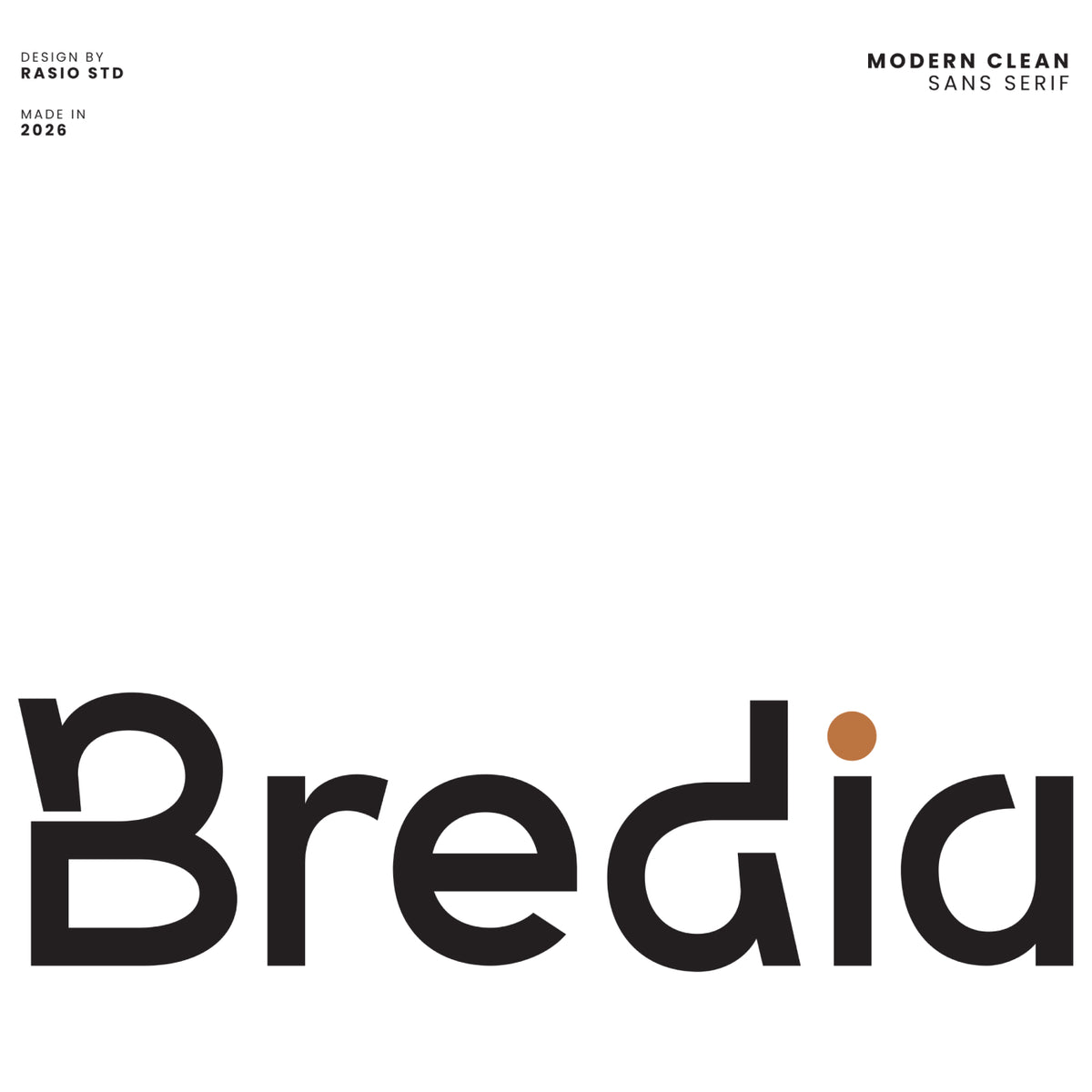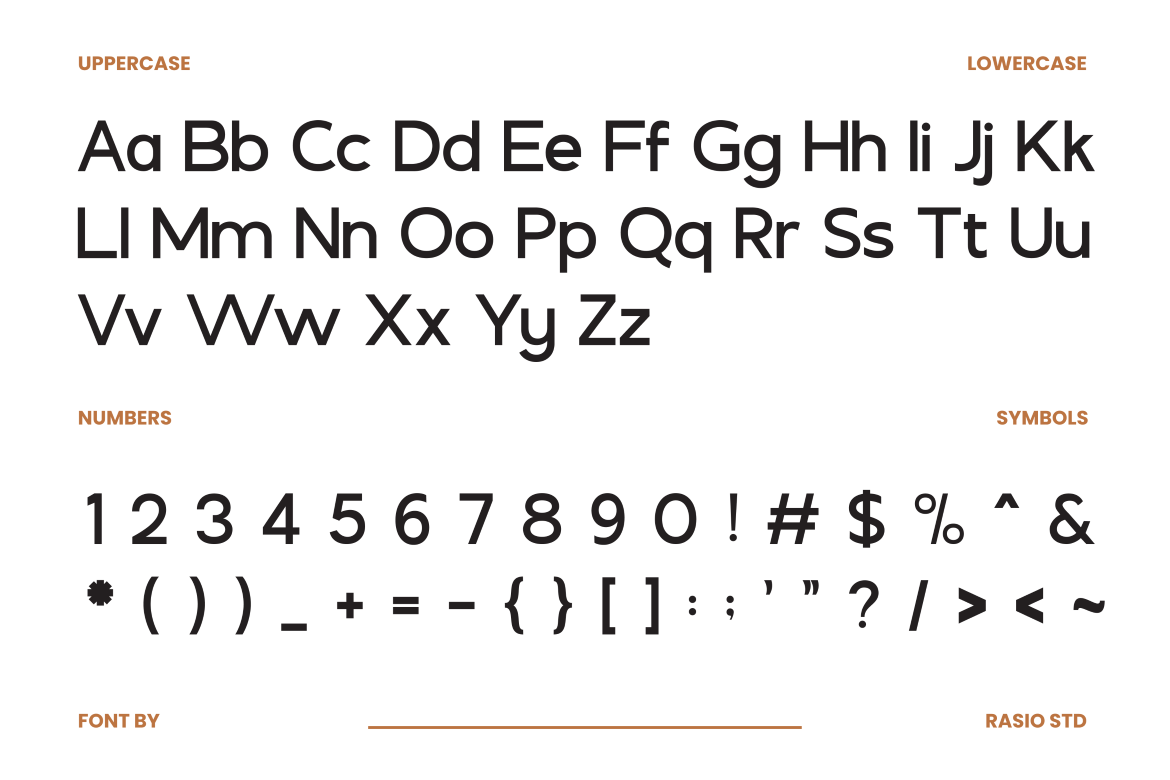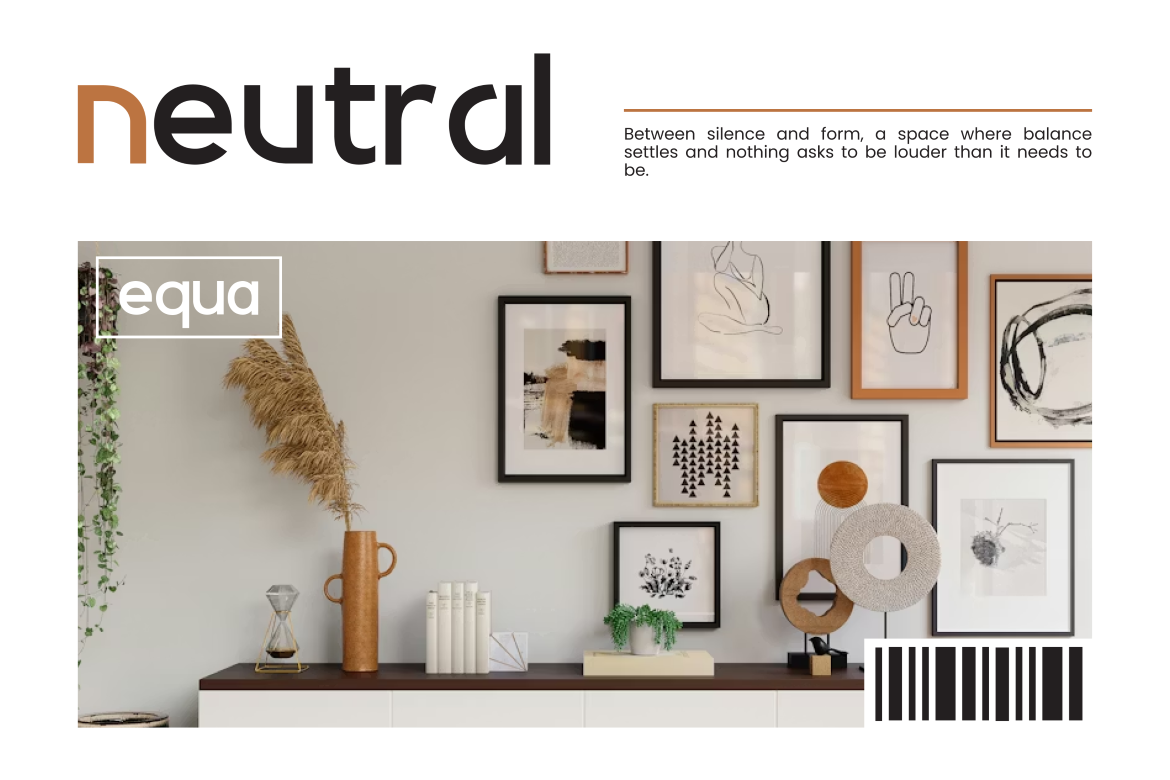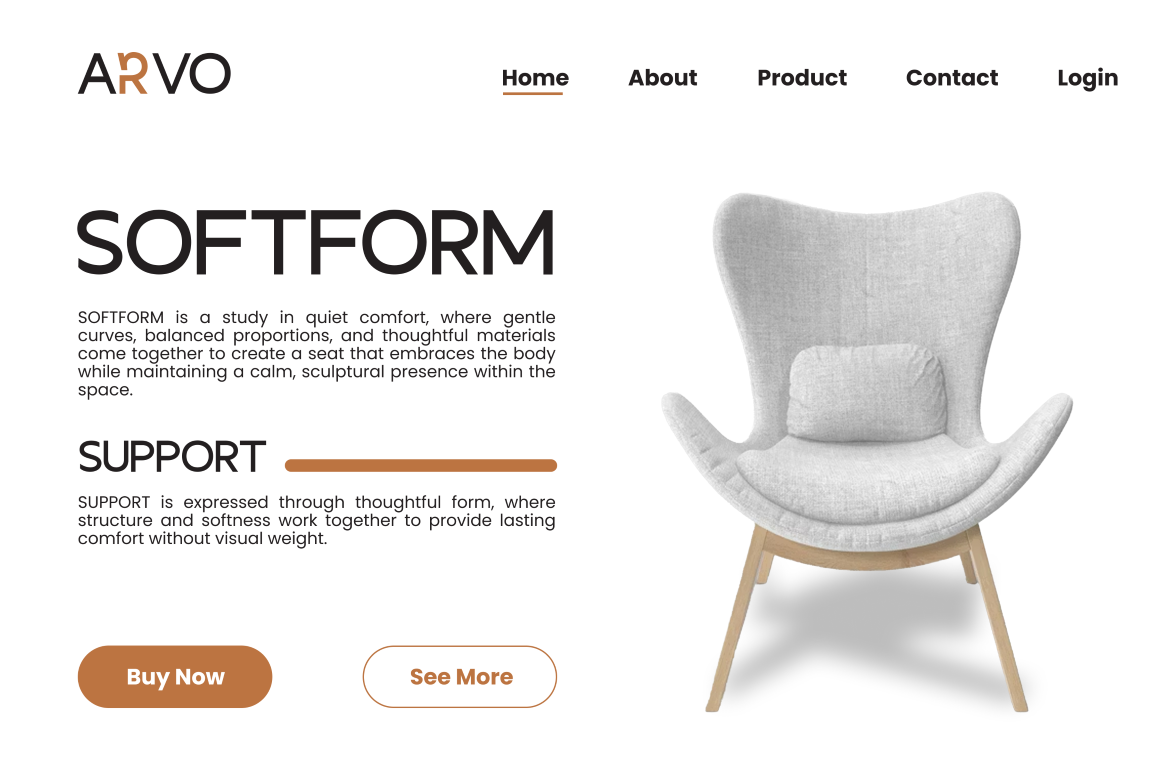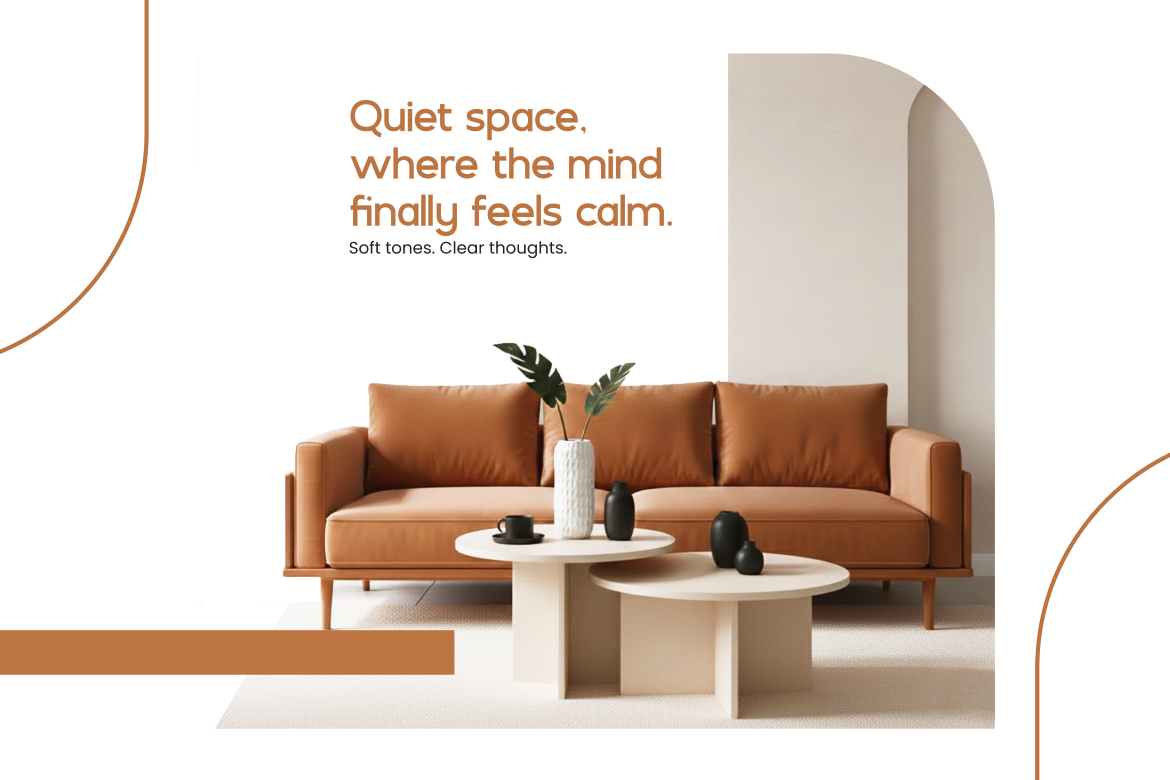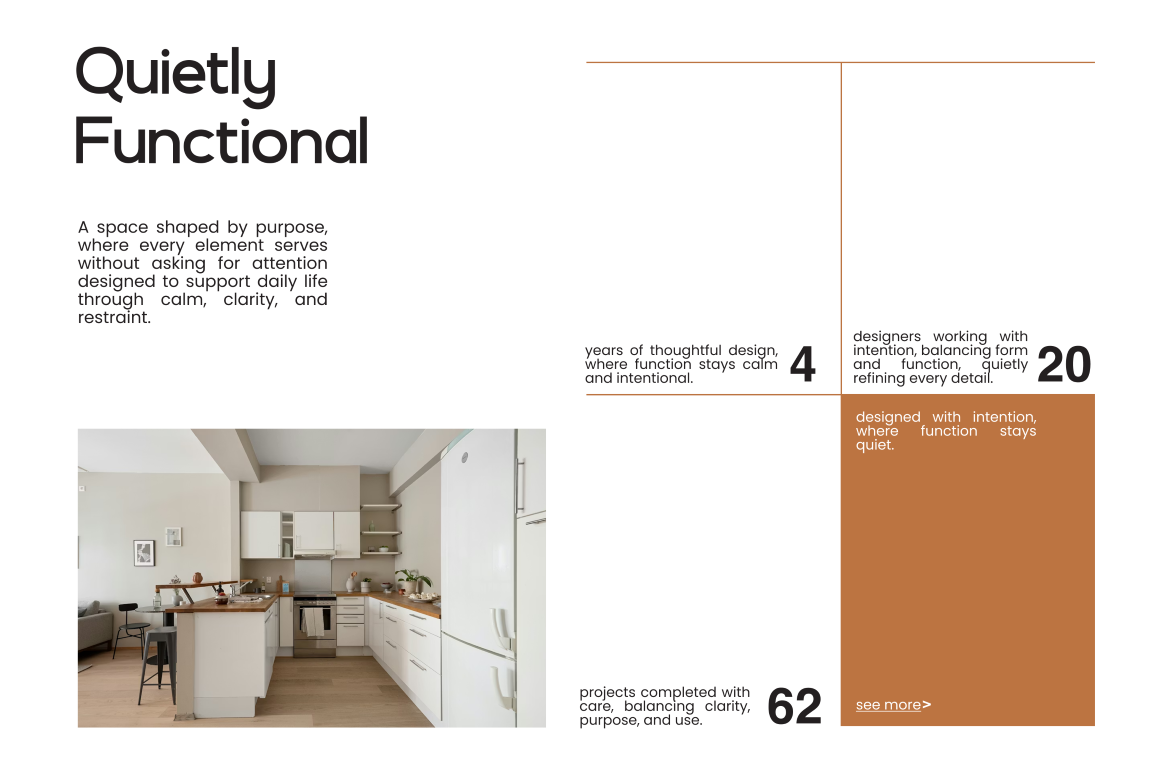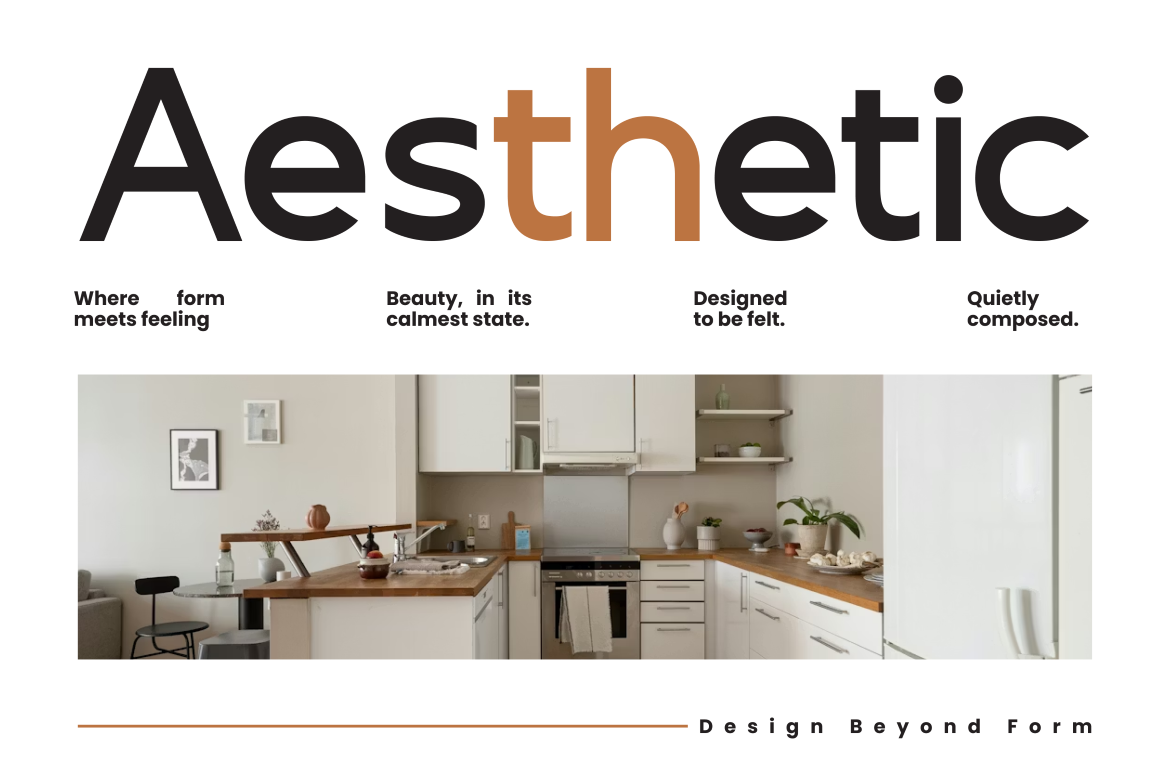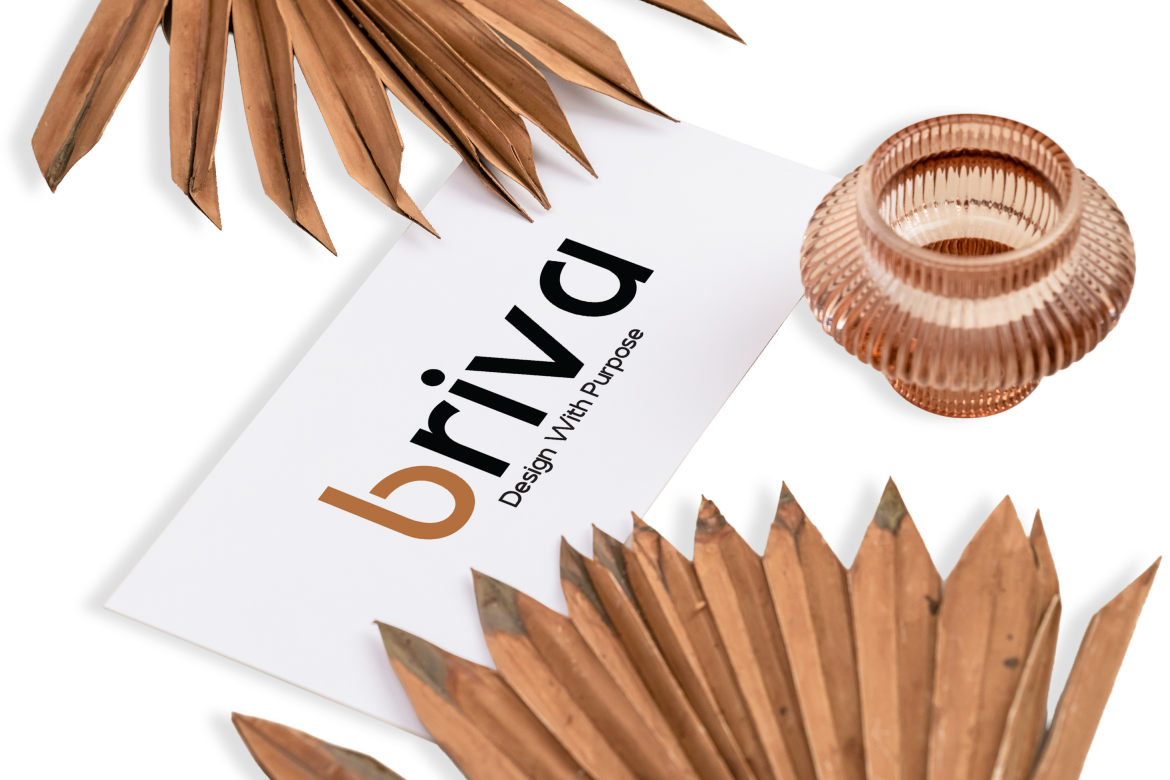
Bredia Modern Clean Sans Serif Font
Bredia is a modern, clean sans serif typeface designed with clarity and contemporary aesthetics in mind. Featuring balanced proportions, geometric influences, and soft terminal cuts, Bredia is built for brands that value precision and simplicity. This typeface includes full uppercase and lowercase characters, numerals, punctuation, and symbols, making it suitable for both digital interfaces and printed compositions.
Relevance and Use Cases is perfect for designers and brands seeking a sleek, contemporary typeface with broad versatility. Its clean structure makes it ideal for web design, app interfaces, editorial layouts, professional presentations, minimalist packaging, and brand identities.
Bredia is a modern sans serif typeface with balanced proportions, geometric influences, and soft terminal cuts. It includes full uppercase and lowercase characters, numerals, punctuation, and symbols, available in OTF, TTF, and WOFF formats.